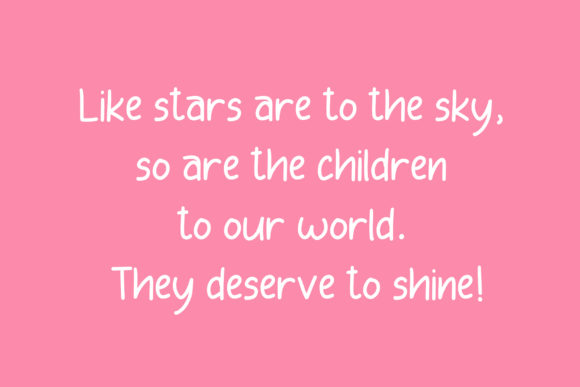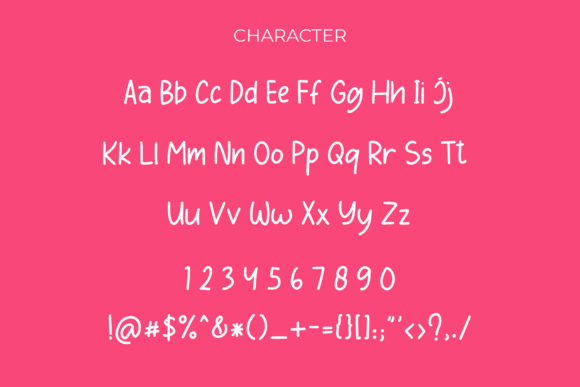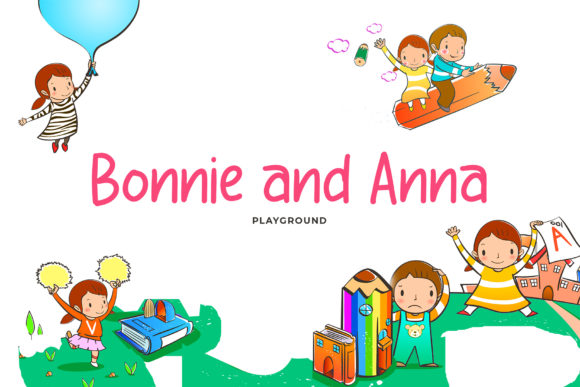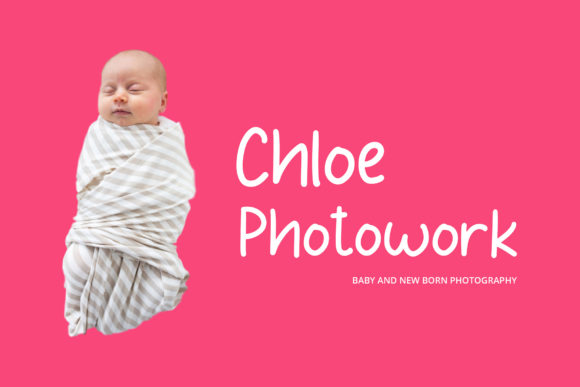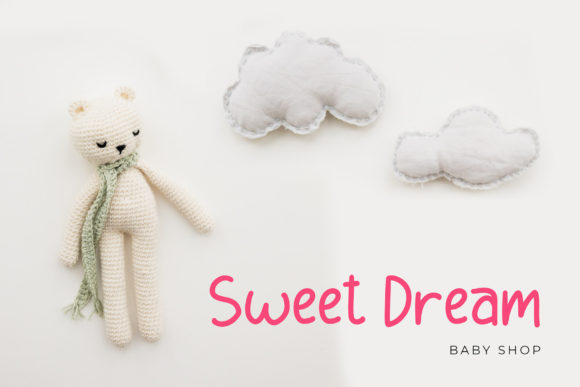
Babybo Font: The Playful Display Font for Children’s Designs
Are you a designer or crafter looking for a font that can add a touch of playfulness and cuteness to your children’s themed designs? Look no further than Babybo Font! This amazing display font is specifically designed to make your designs stand out and capture the hearts of your audience. With its playful look and feel, Babybo Font is the perfect choice for anyone who wants to create fun and engaging designs for kids.
What is Babybo Font?
Babybo Font is a unique and creative display font that is inspired by the playful and whimsical world of children. Its cute and charming design makes it perfect for use in a variety of design projects, including children’s books, posters, flyers, and more. Whether you’re a professional designer or a DIY crafter, Babybo Font is easy to use and can add a touch of personality to your designs.
Features of Babybo Font
Babybo Font comes with a range of features that make it a versatile and practical choice for designers and crafters. Some of its key features include:
- Playful and Whimsical Design: Babybo Font has a playful and whimsical design that is perfect for children’s themed designs.
- High-Quality Design: Babybo Font is designed with high-quality graphics that ensure it looks great in any design.
- Versatile: Babybo Font can be used in a variety of design projects, including children’s books, posters, flyers, and more.
Benefits of Using Babybo Font
There are many benefits to using Babybo Font in your designs. Some of the key benefits include:
- Adds a Touch of Playfulness: Babybo Font adds a touch of playfulness and whimsy to your designs, making them more engaging and fun for kids.
- Easy to Read: Babybo Font is easy to read, even for young children, making it perfect for use in children’s books and other materials.
- Customizable: Babybo Font can be customized to fit your design needs, allowing you to create unique and personalized designs.
- Time-Saving: Babybo Font saves you time and effort, allowing you to create professional-looking designs in minutes.
Design Ideas Using Babybo Font
Babybo Font is a versatile font that can be used in a variety of design projects. Here are some design ideas to get you started:
- Children’s Books: Use Babybo Font to create engaging and fun children’s books that kids will love.
- Posters and Flyers: Use Babybo Font to create eye-catching posters and flyers for kids’ events and activities.
- Party Invitations: Use Babybo Font to create cute and playful party invitations that kids will love.
- Craft Projects: Use Babybo Font to add a touch of personality to your craft projects, such as scrapbooking and card making.